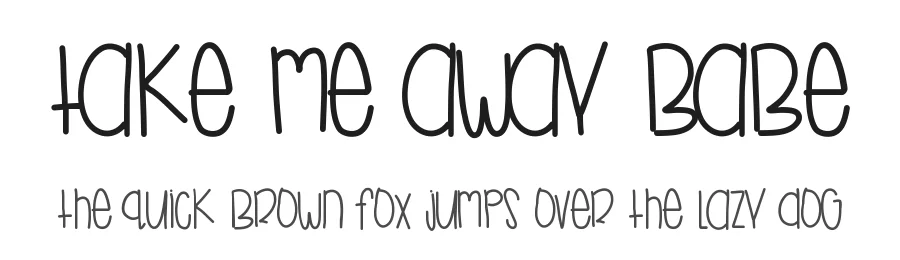
About Ice Cream Sandwich Font
Ice Cream Sandwich Font is a script font that shines as a display or heading face. Pair it with a clean sans-serif or serif font for body text β the contrast creates a clear hierarchy while the two styles stay balanced and easy to read.
Ice Cream Sandwich Font
by Des Gomez
Ice Cream Sandwich Font is a script handwritten typeface by Des Gomez, ideal for logos, invitations, branding, and creative projects.